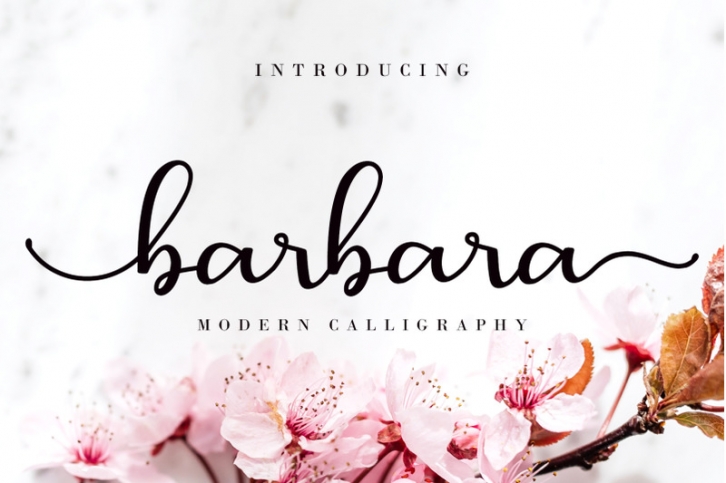
Barbara is a beautiful script font. It has a classy, elegant, and modern look which can be used for logos, branding, invitations, stationery, wedding designs, social media posts, and every other design in need of a handwritten touch.
Barbara Features :
- (a-z) titling, (a-z) swashes
- Support multilingual; ä ö ü Ä Ö Ü ß ¿ ¡